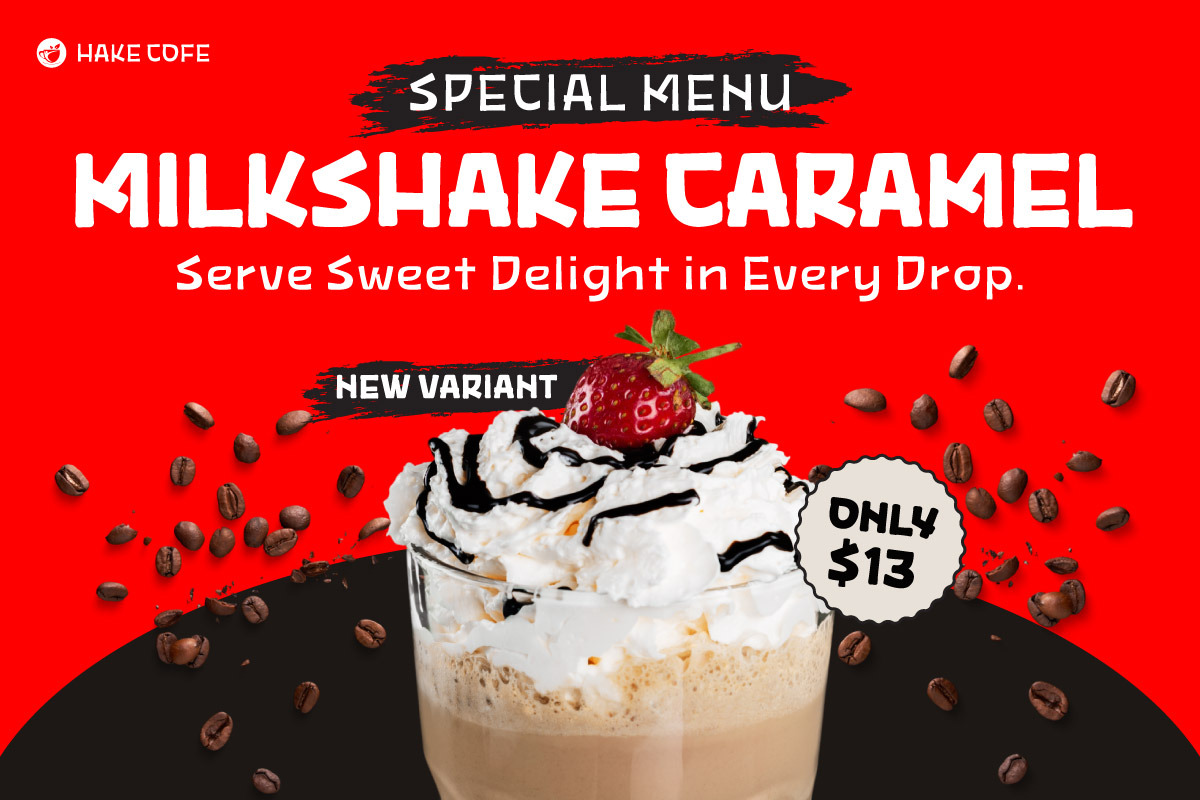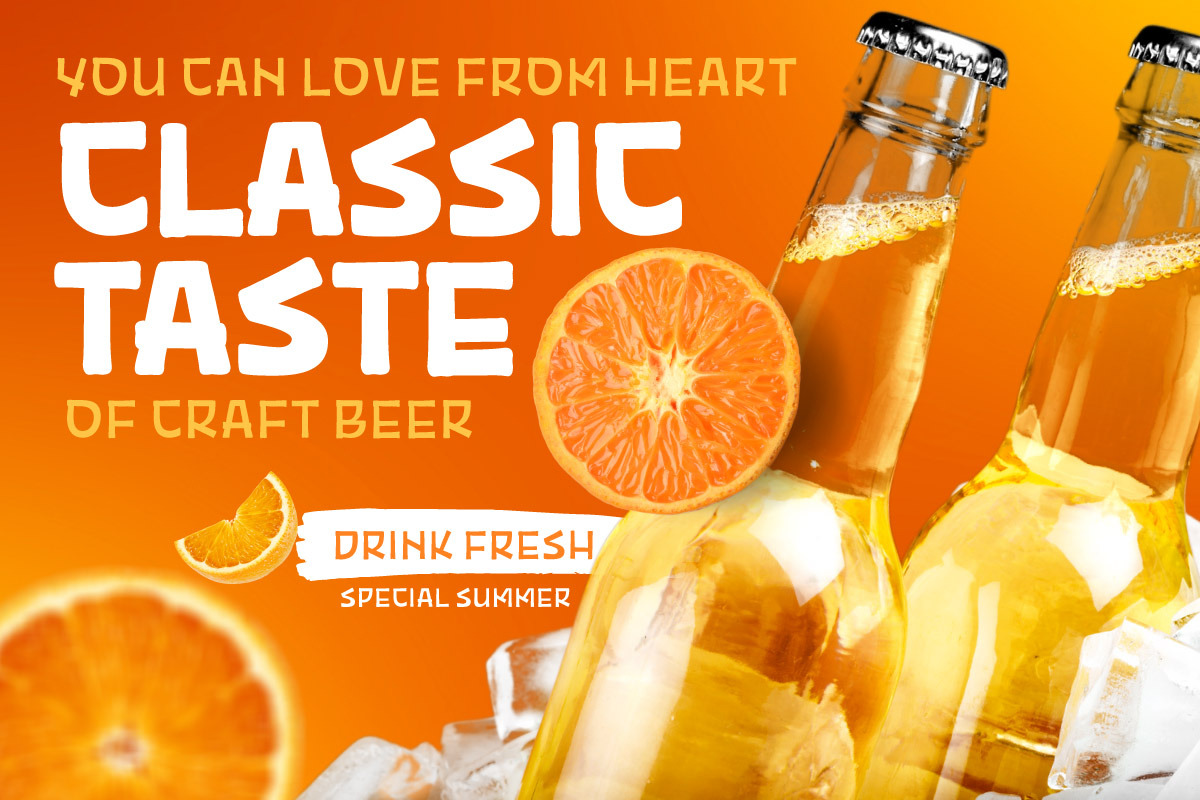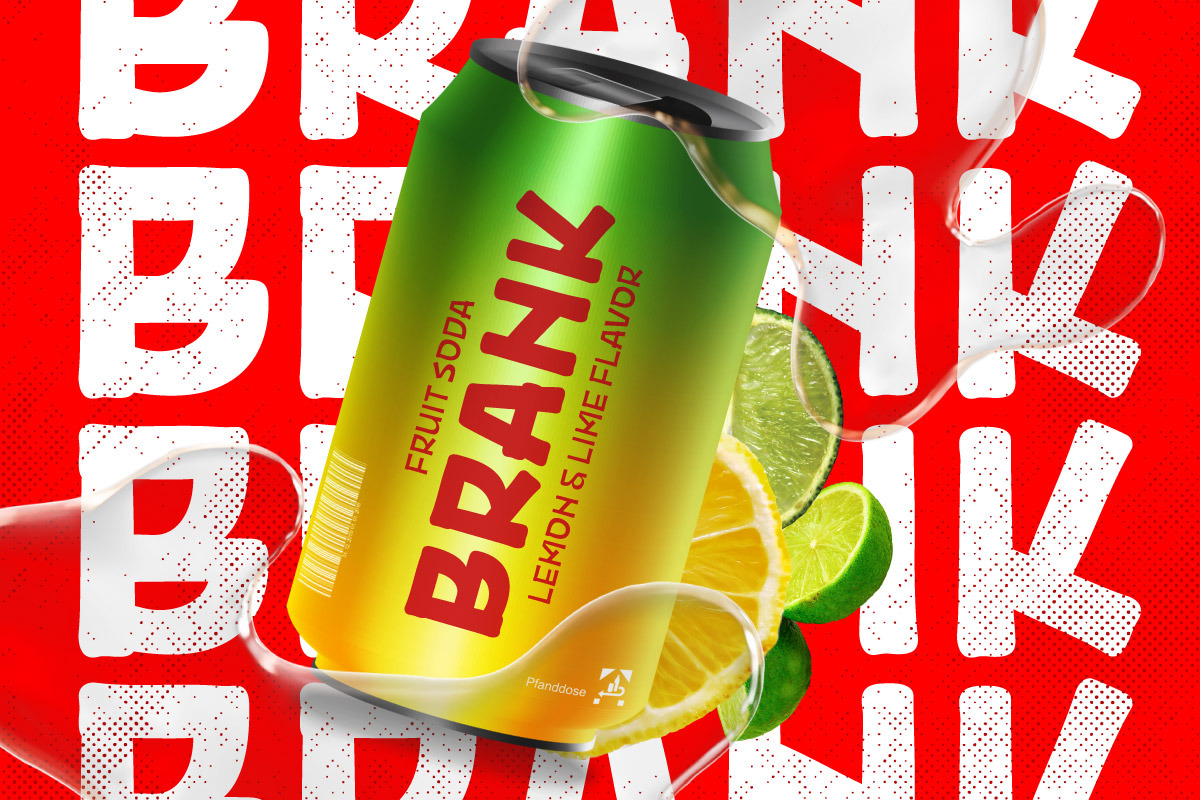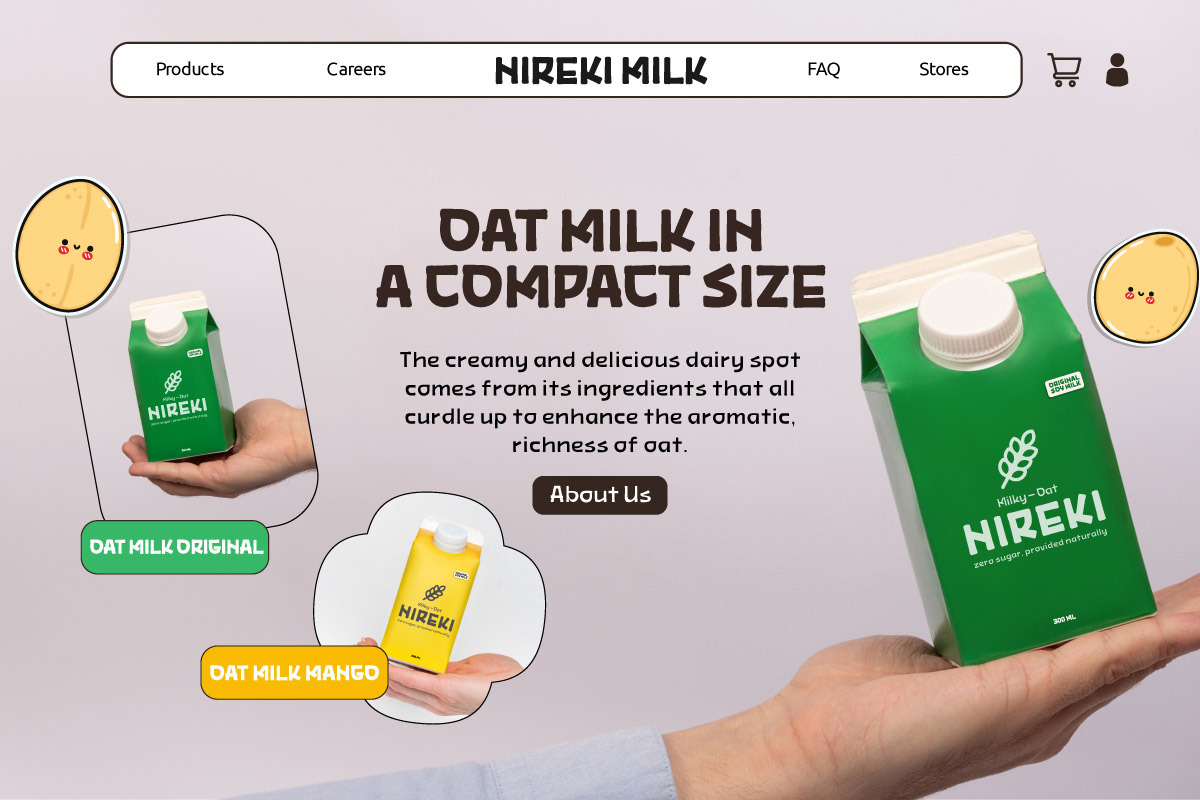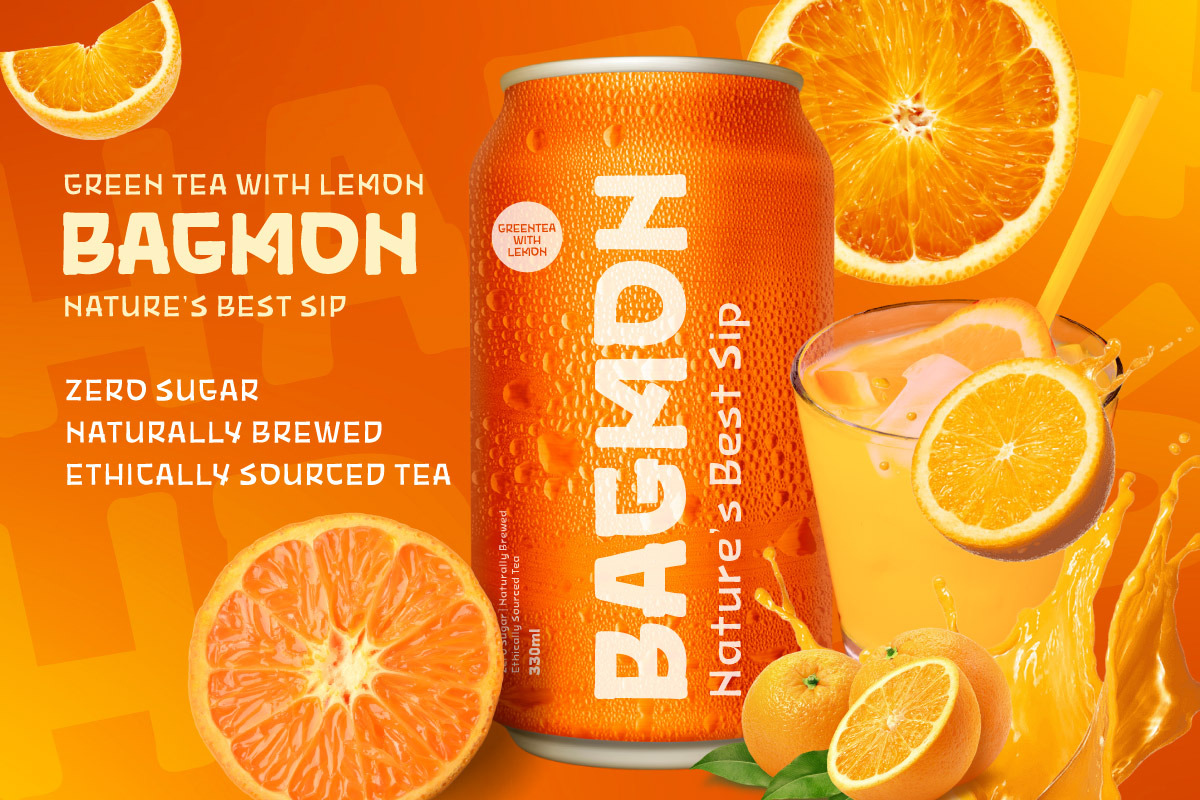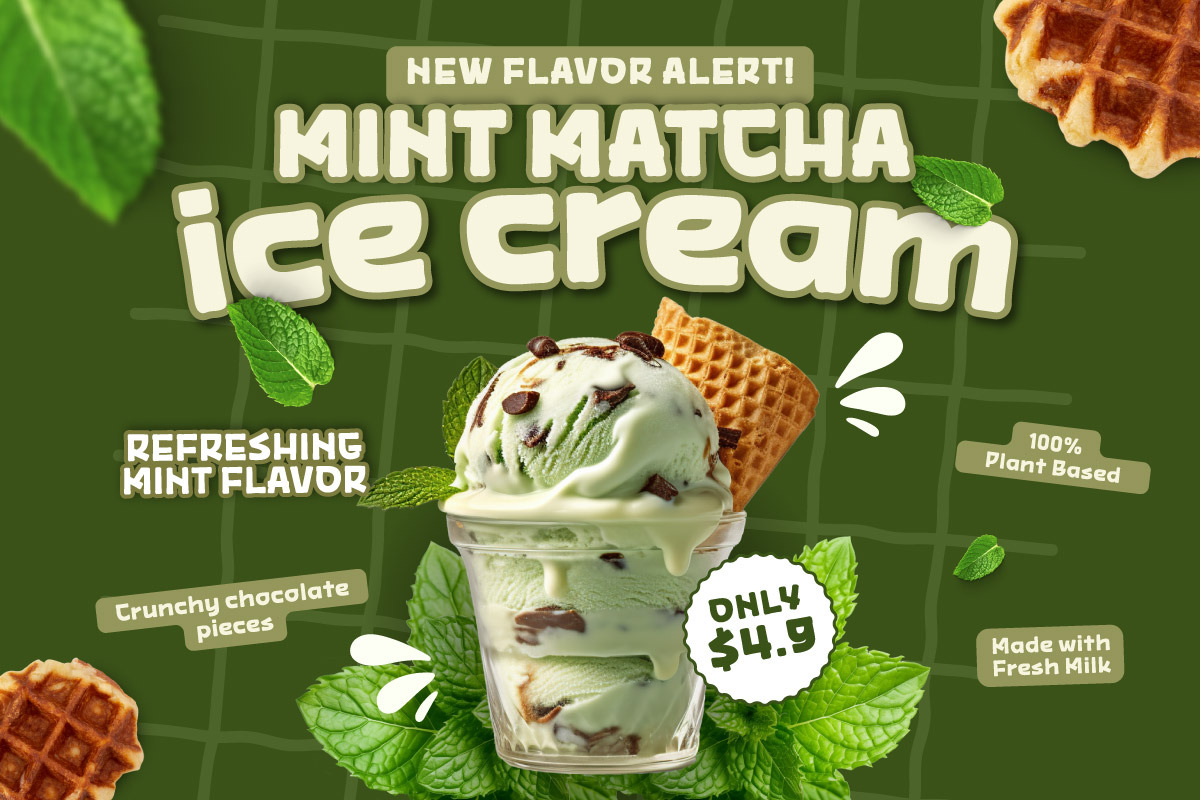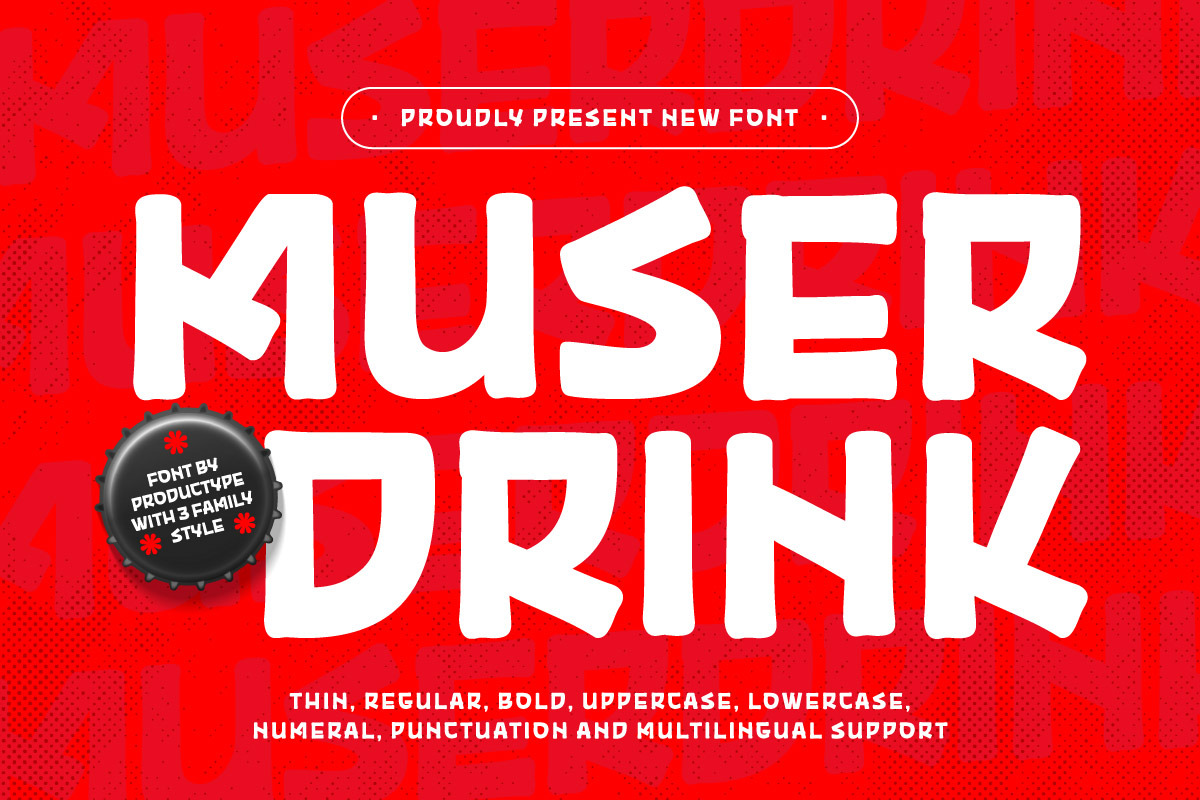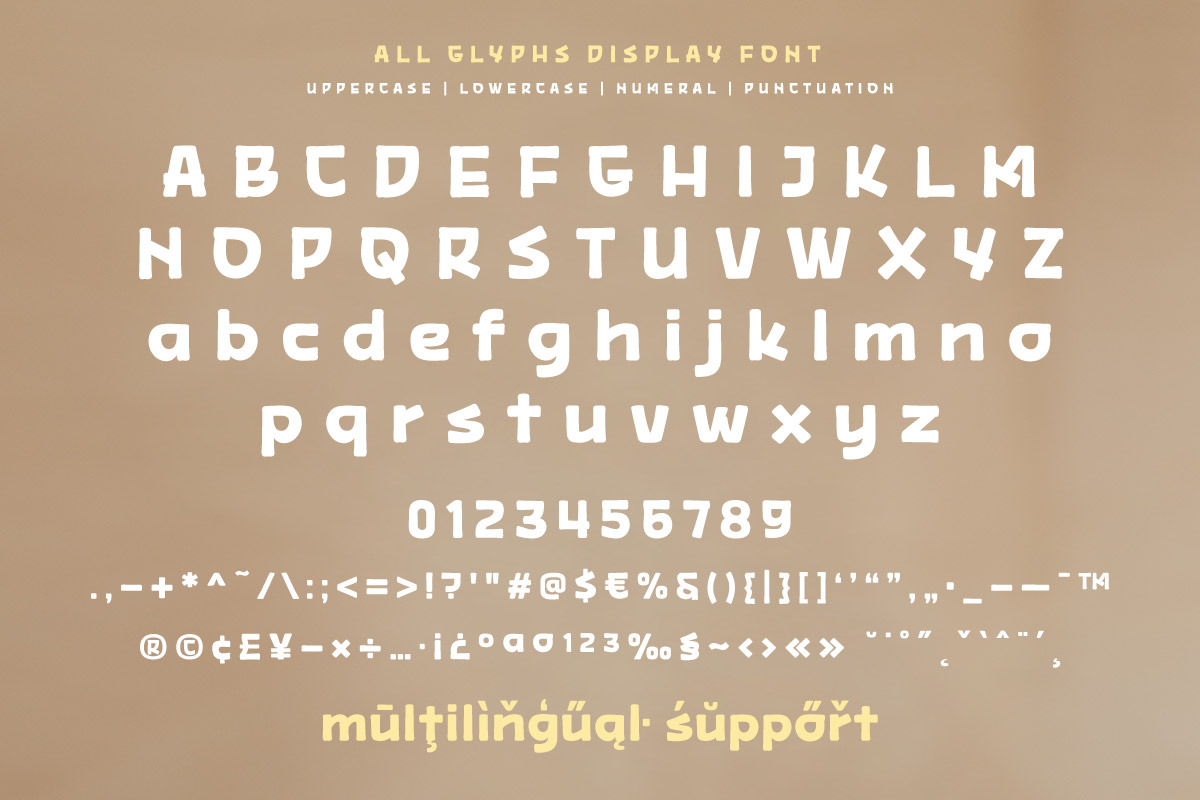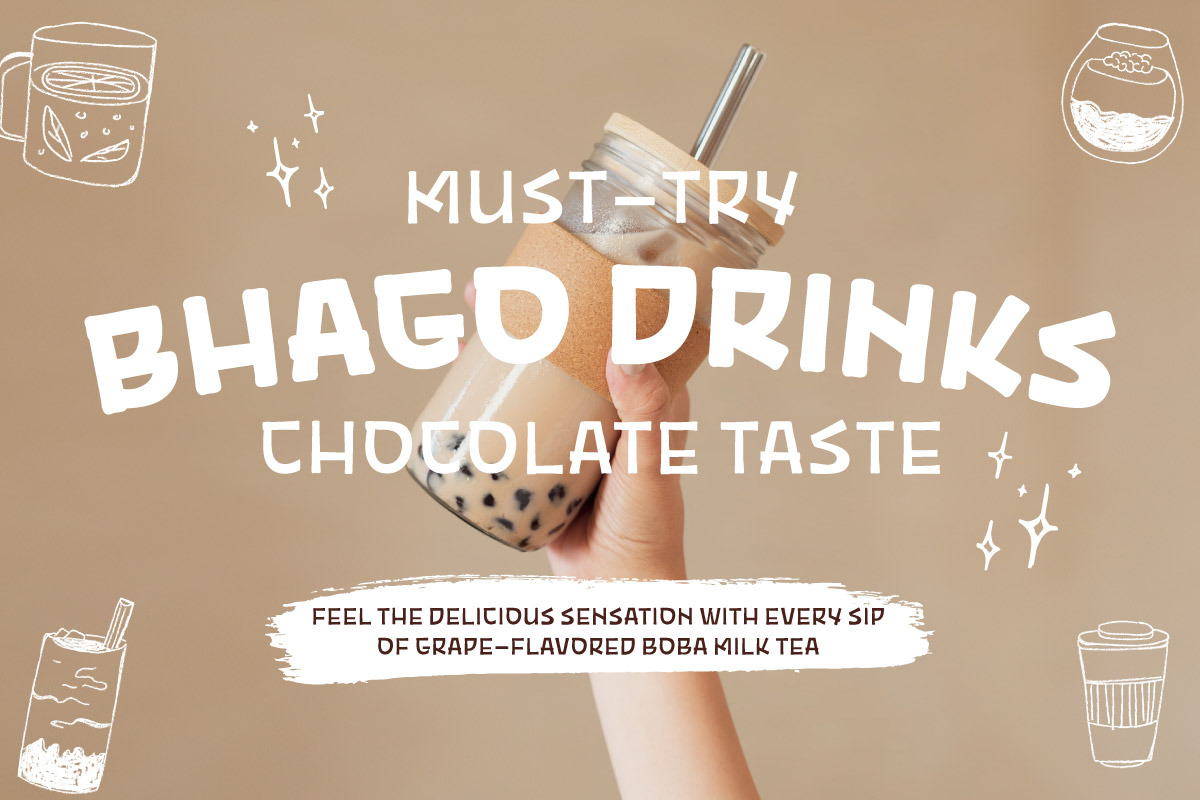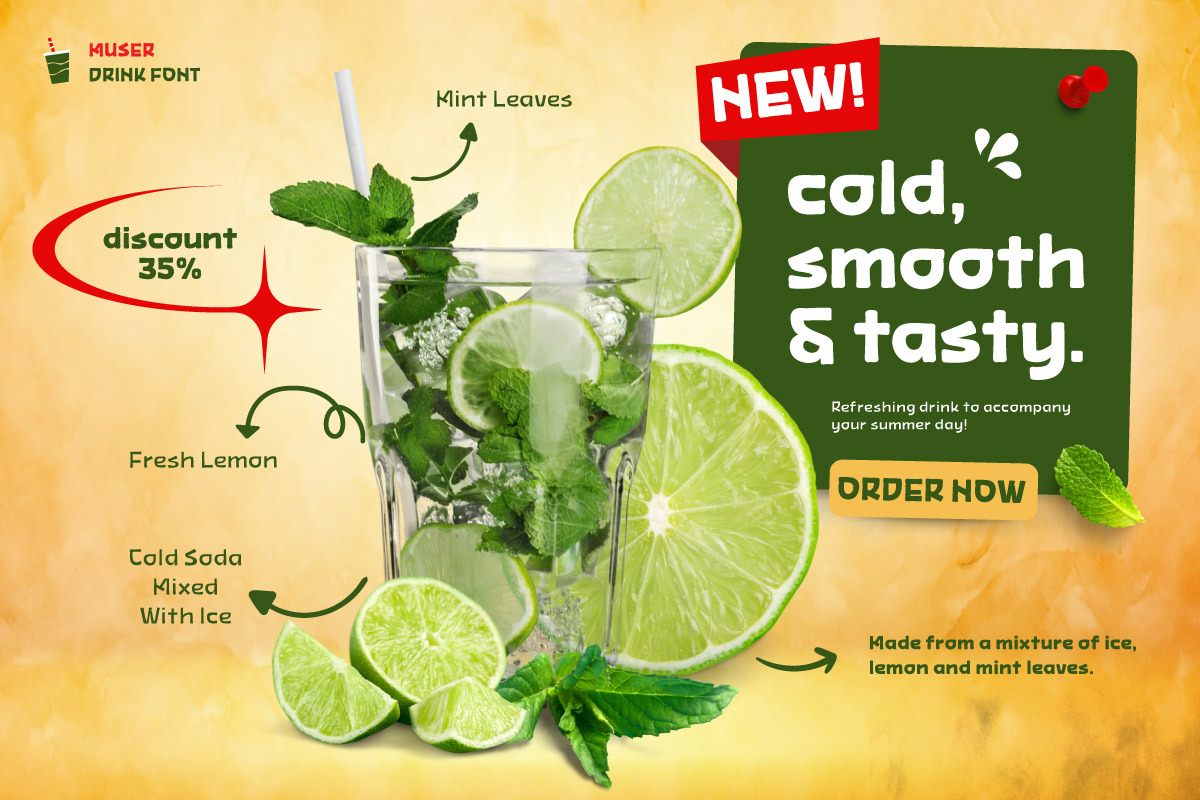
Muser Drink - Display Font
Muser Drink – Refreshing Display Font for Summer Beverage Branding Muser Drink is a bold and playful display font crafted to bring a splash of freshness to beverage branding, especially for summer-themed products. Its fun and chunky letterforms are perfect for juice labels, soda packaging, café menus, and promotional posters that need to stand out.
With three versatile styles (Thin, Regular, Bold), Muser Drink delivers flexibility and a vibrant aesthetic to help your brand pop and attract customers instantly. Whether used for titles, packaging, or social media visuals, this font is the perfect choice for drink brands aiming for a fun, youthful, and energetic identity.
Give your drink brand a bold summer twist with Muser Drink – because great taste deserves eye-catching design!